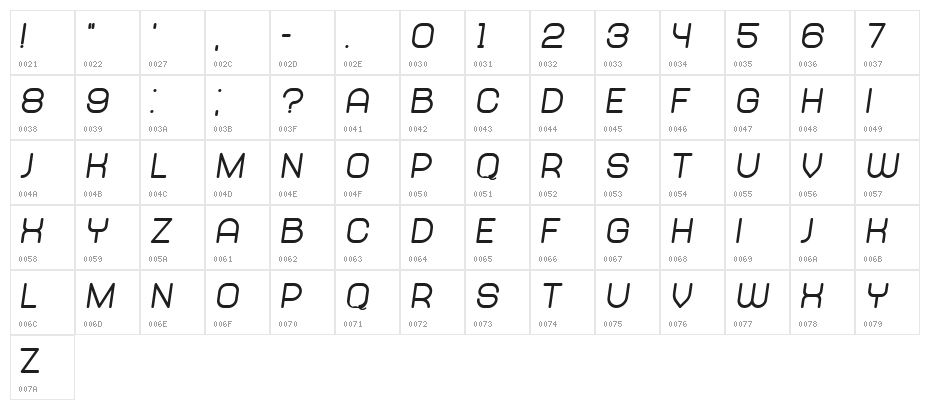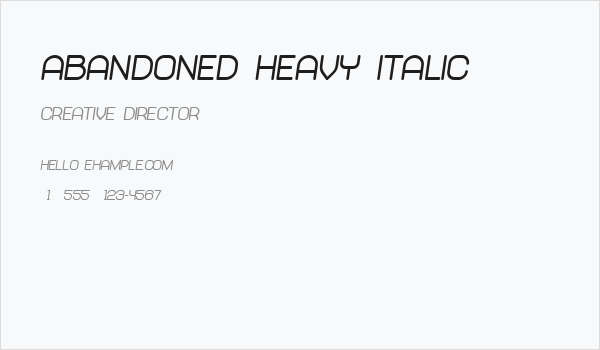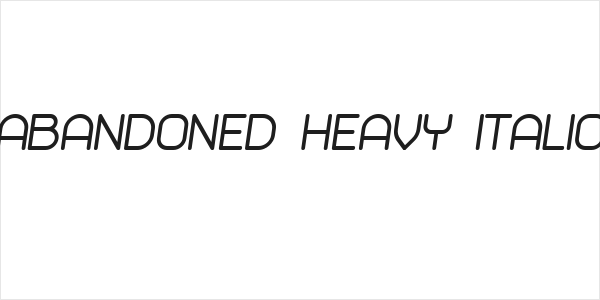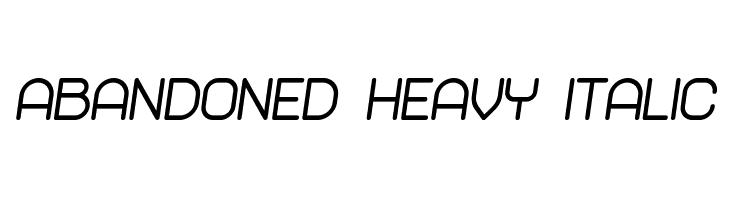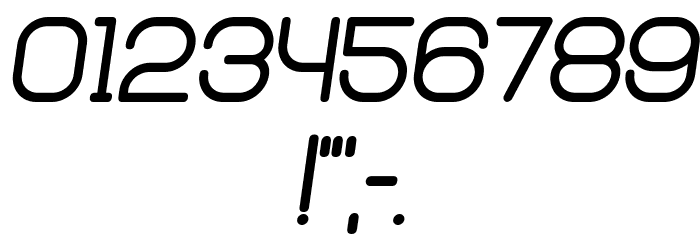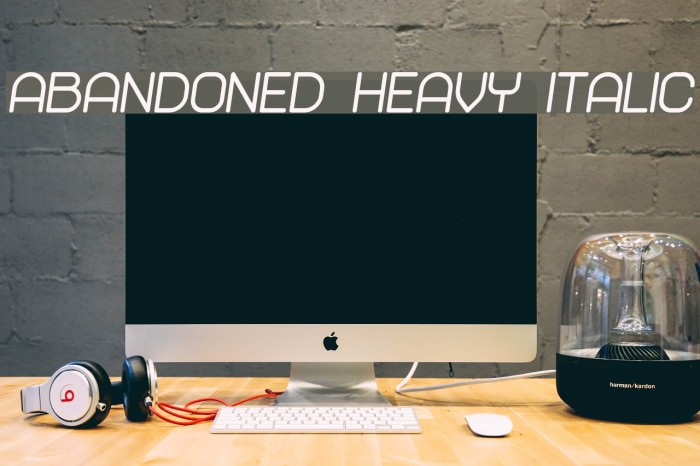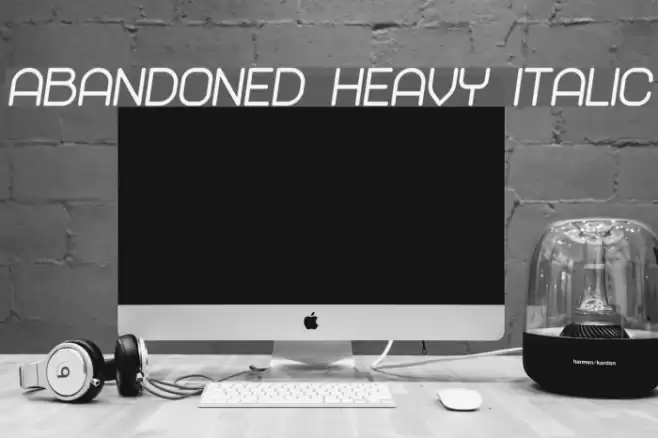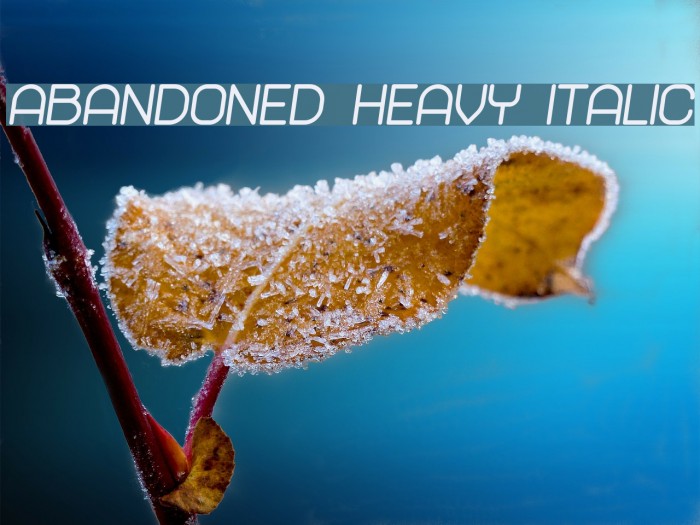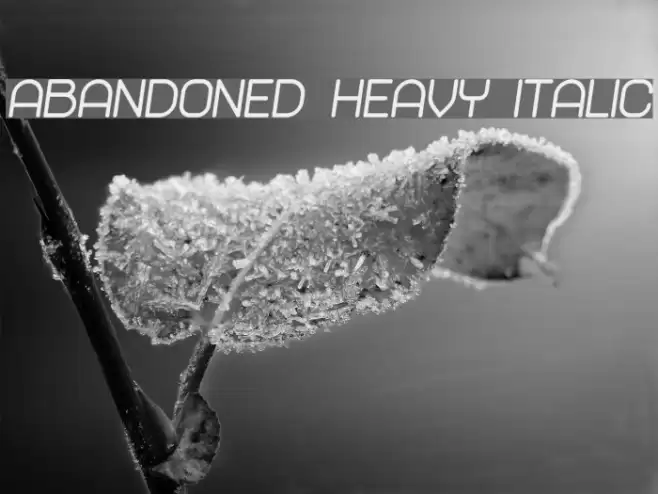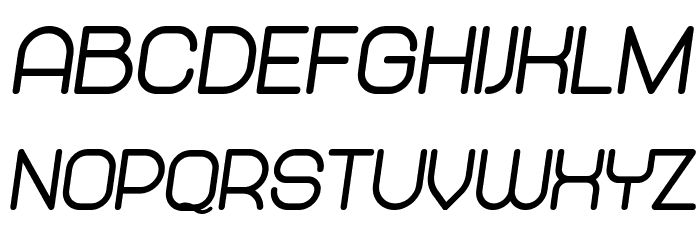
Abandoned Heavy Italic Font
Abandoned Heavy Italic Description
This font features a modern and sleek design with a distinct italic slant, giving it a dynamic and forward-moving appearance. The characters are crafted with a uniform stroke width, contributing to a clean and streamlined look. The rounded edges soften the overall aesthetic, making it approachable while maintaining a professional tone. The spacing between characters is consistent, ensuring readability and balance across various text sizes. This font's style is versatile, suitable for both digital and print media, and can effectively convey a sense of innovation and progress.
| Use Case | Headlines, Logos, Digital media |
| Proposed Projects | Ideal for technology branding, modern advertising, and innovative product packaging. |